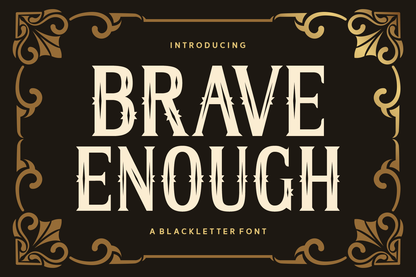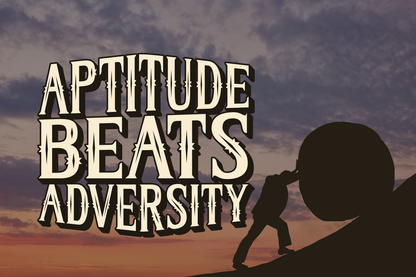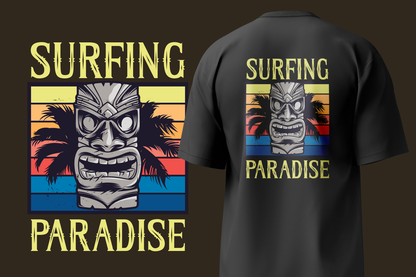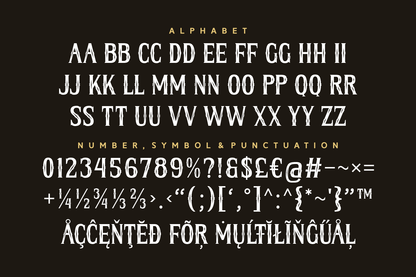
Brave Enough is a sharp and decorative blackletter font with striking mid-century inspired details. Perfect for heroic posters, vintage packaging, and festival branding that needs bold character.